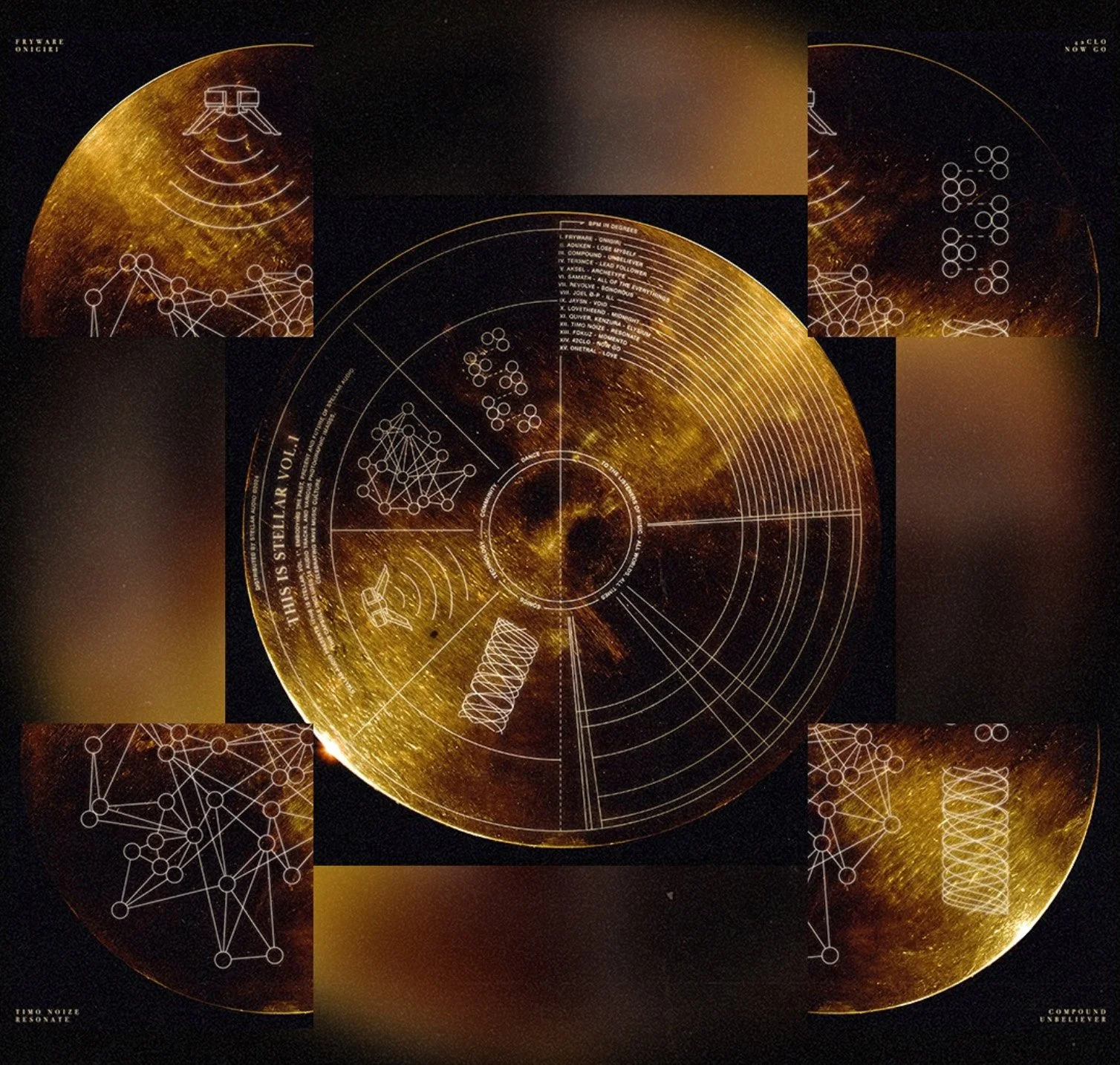
Cover art for Stellar Audio’s VA LP, “This is Stellar Vol. 1”.
For this project, I was briefed to create more than just a cover. Stellar Audio wanted this LP to have as much visual impact as it does audio.
The visuals for the LP were inspired by the Golden Record sent to space attached to the Voyager 1 probe. The LP was designed as a sort of time capsule telling the story of rave music culture to extraterrestrials, instead of human kind as a whole, like Sagan’s.
The capsule comprises of 15 audio tracks and a set of photographs taken by me and various other photographers of the UK rave music scene.
The cover’s main theme is are the ‘4 pillars of rave culture’. Sonics, technology, community and dance.
Four singles were released in the run up to the LP. Each of their artworks were taken from the rear of the record cover, with one icon from a ‘pillar’ on each of them respectively. The icons were supposed to be a sort of clue or code hinting at the main theme of the LP, with the LP’s main cover explaining itself when it was fully released.
The back side of the LP’s cover.
The single covers.
A few of the photographs of mine from the capsule.